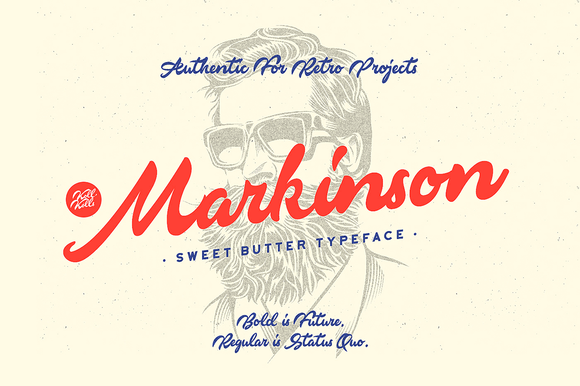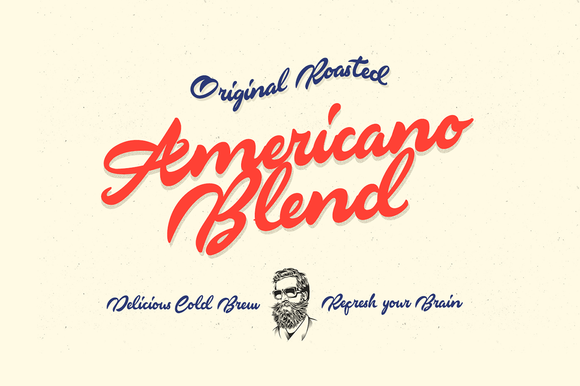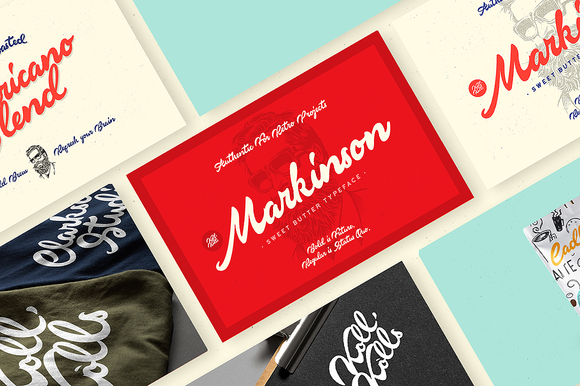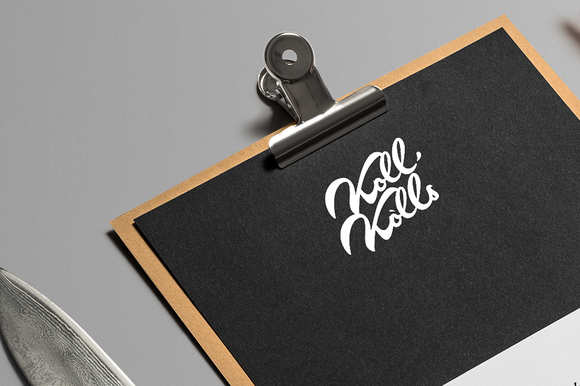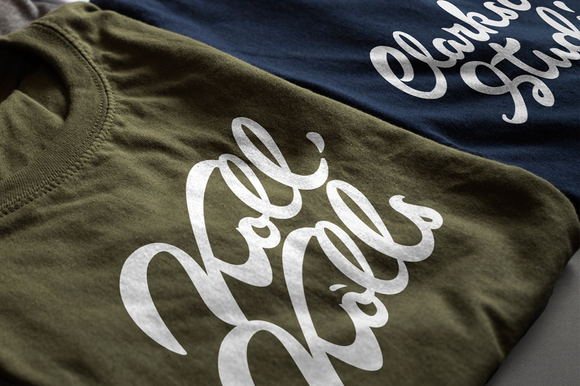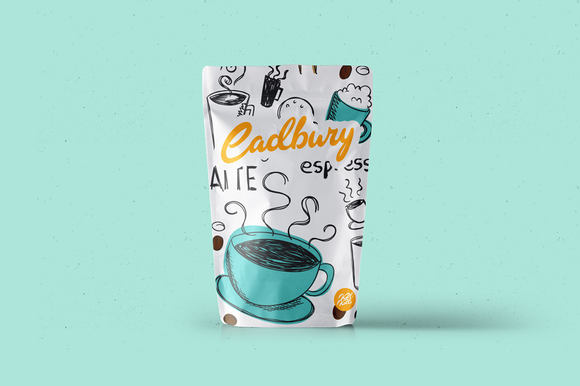
Introduction to Markinson Font
Markinson is a stunning font with a classic and retro style.
Key Features of Markinson Font
Why Choose Markinson Font?
Markinson Font offers exceptional quality and versatility, making it a valuable addition to your design toolkit. Whether you’re creating for personal projects or commercial use, Markinson Font delivers professional results.